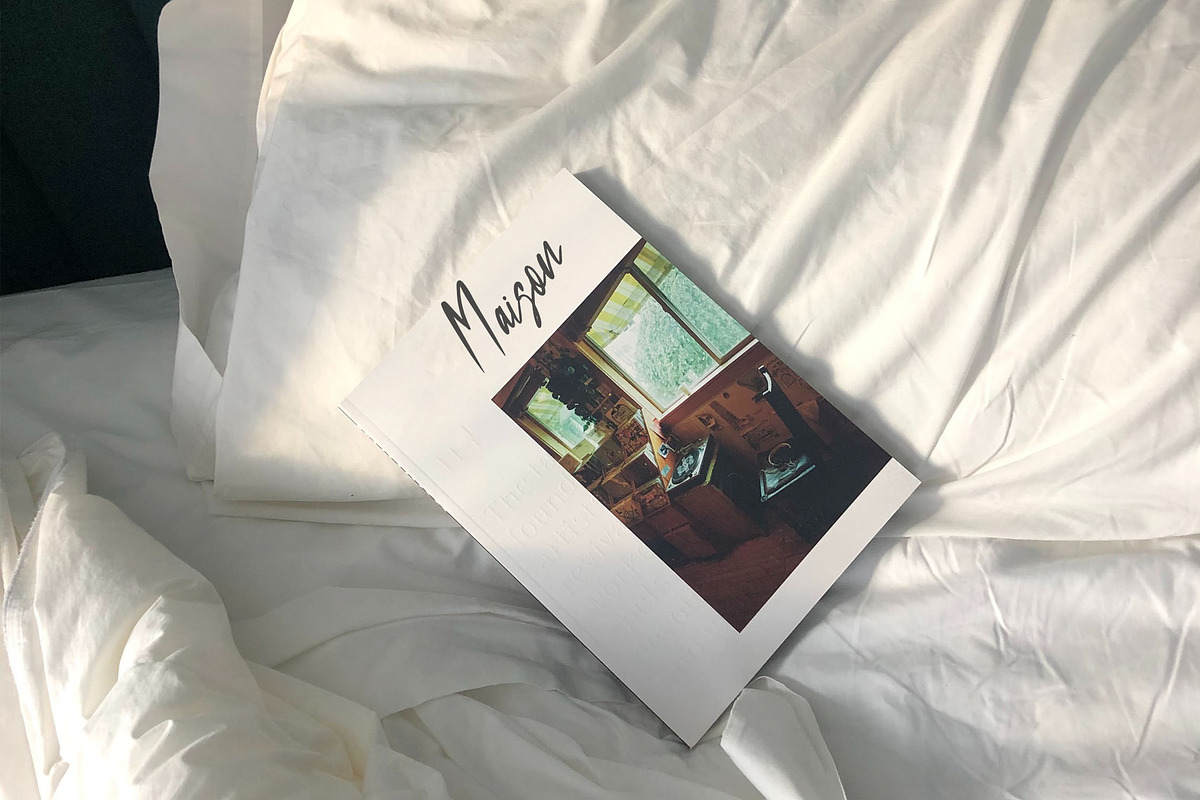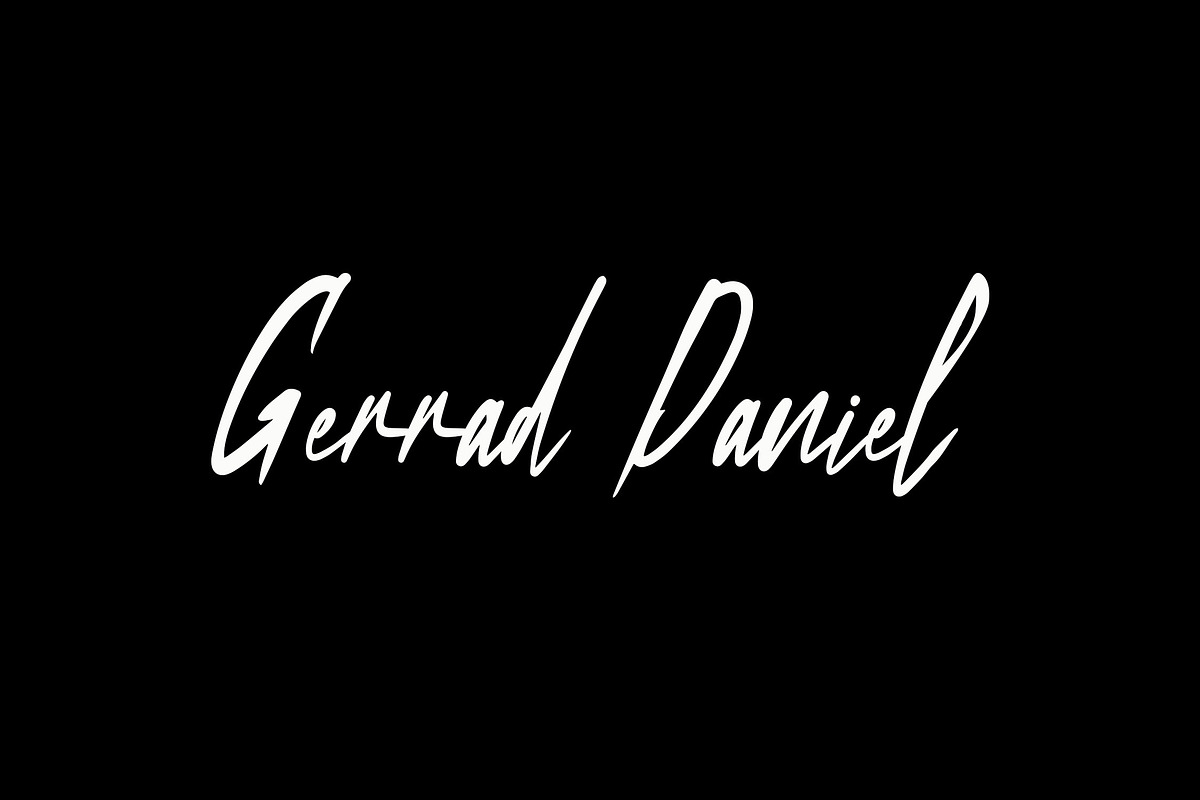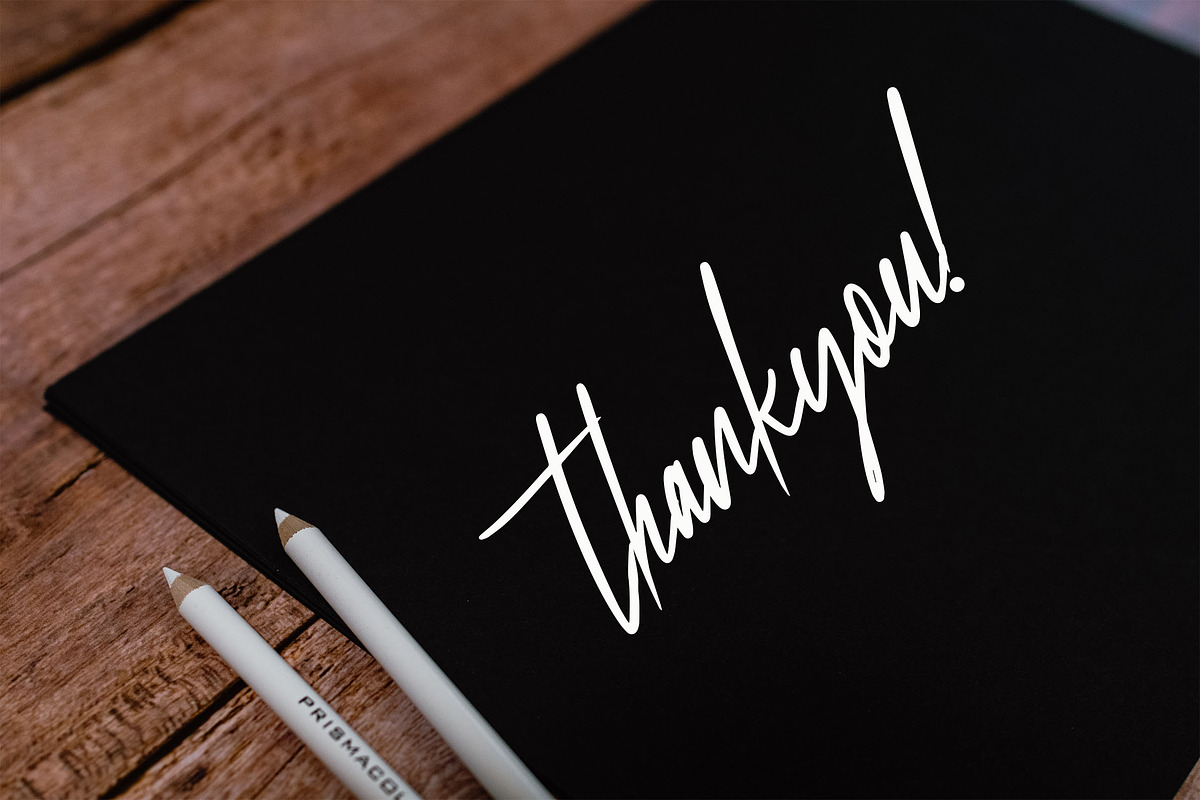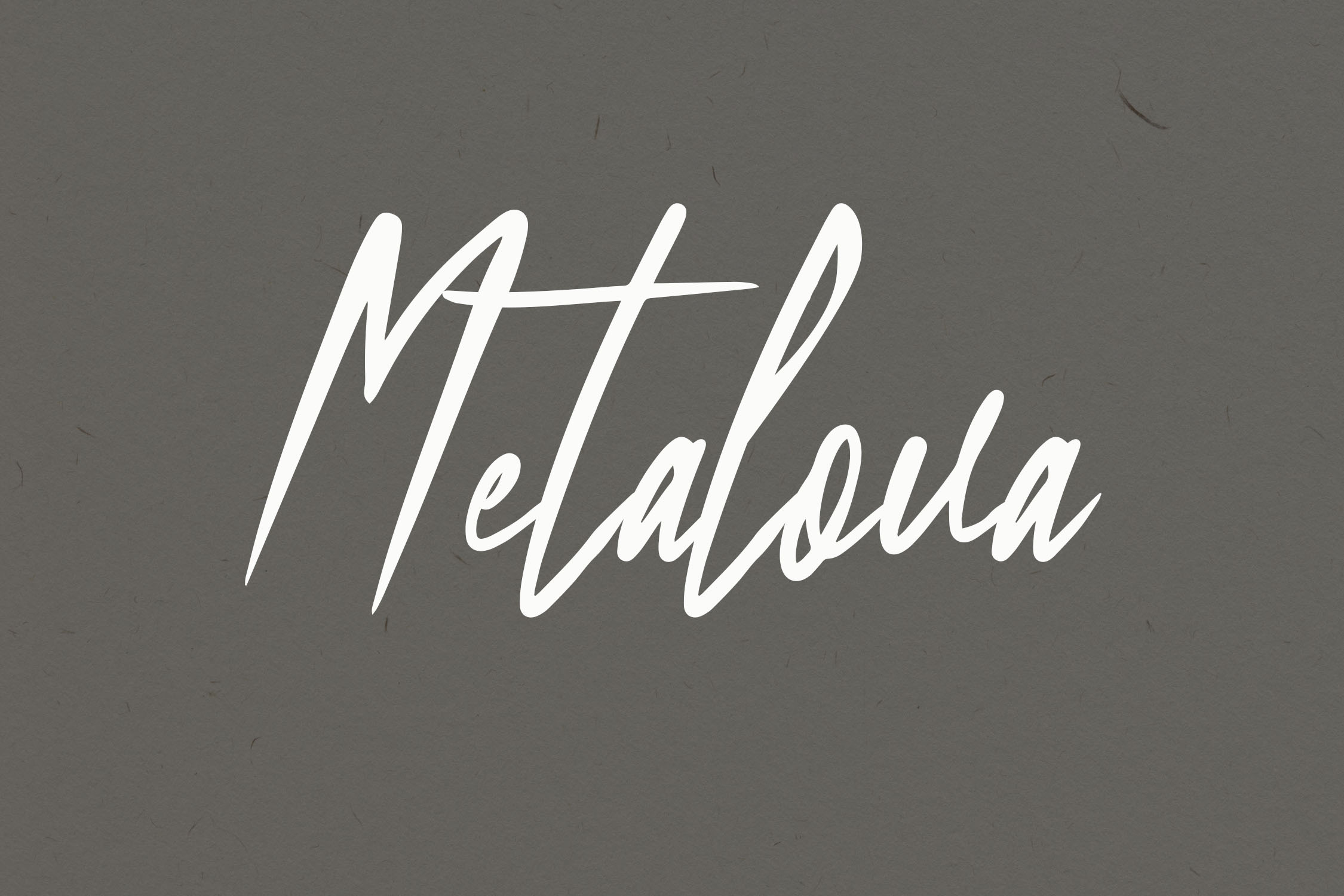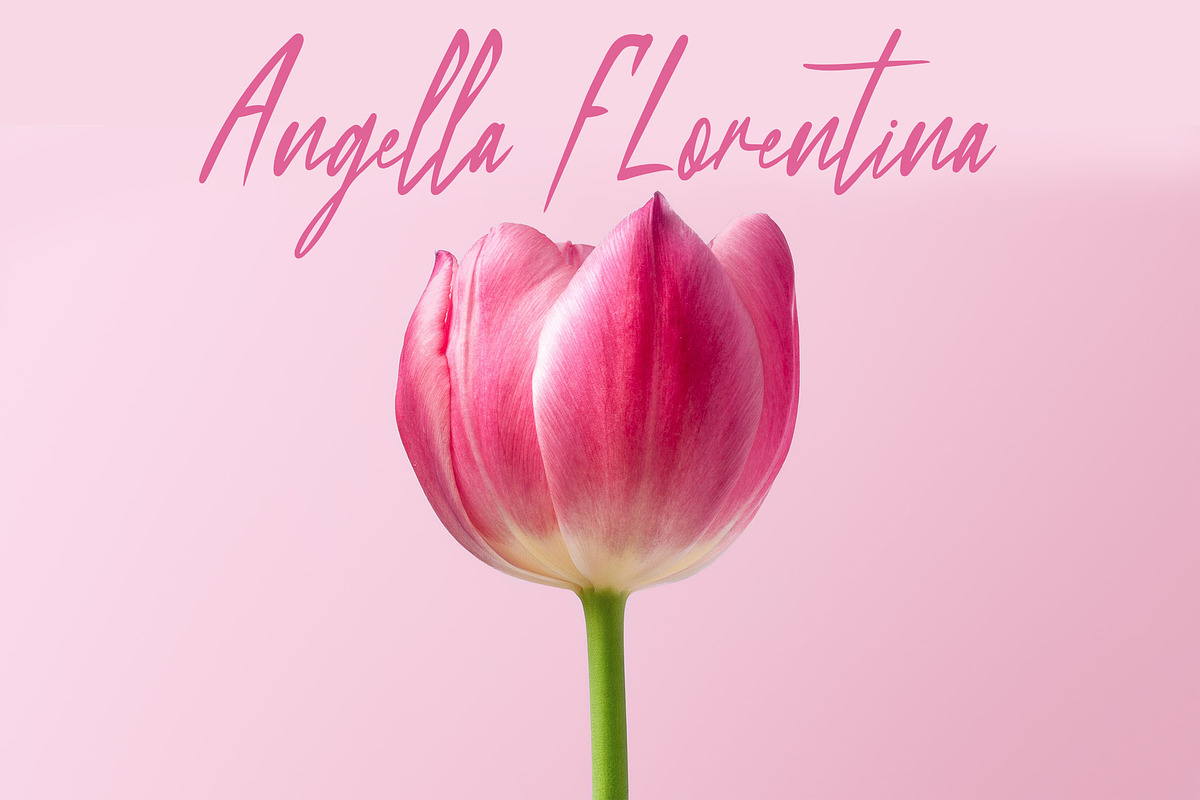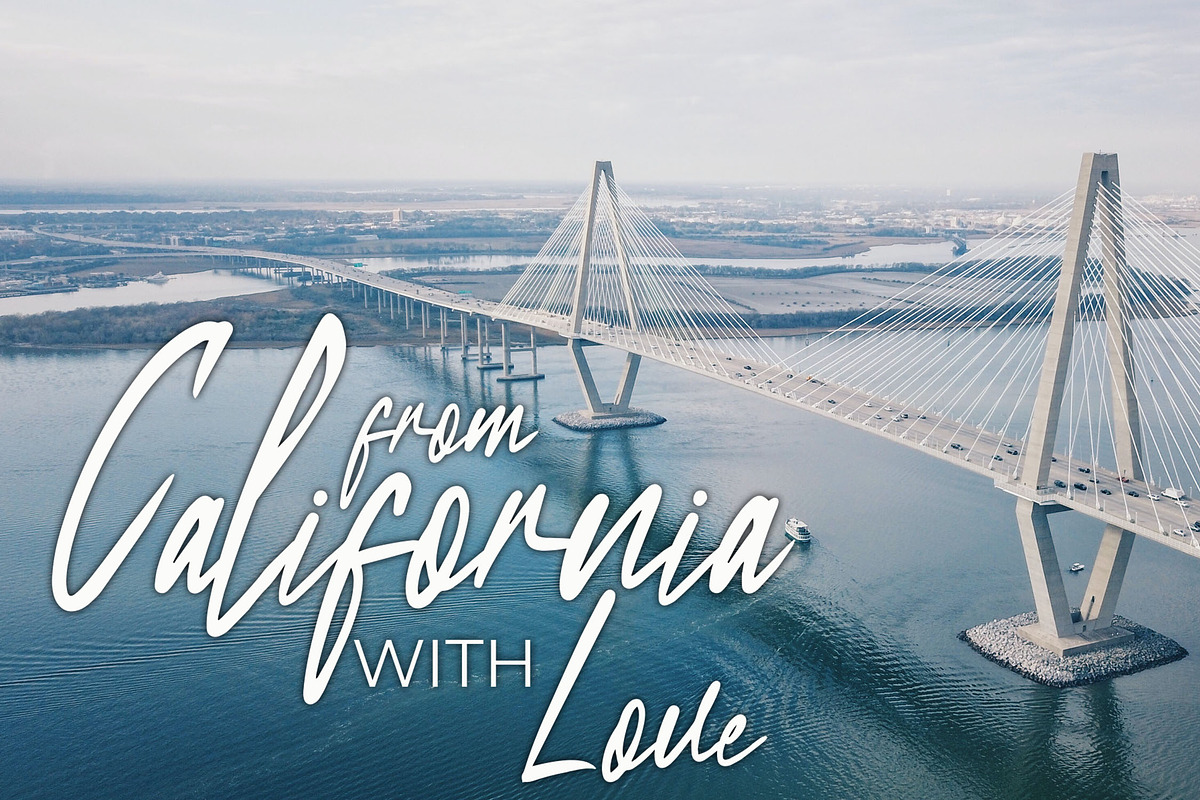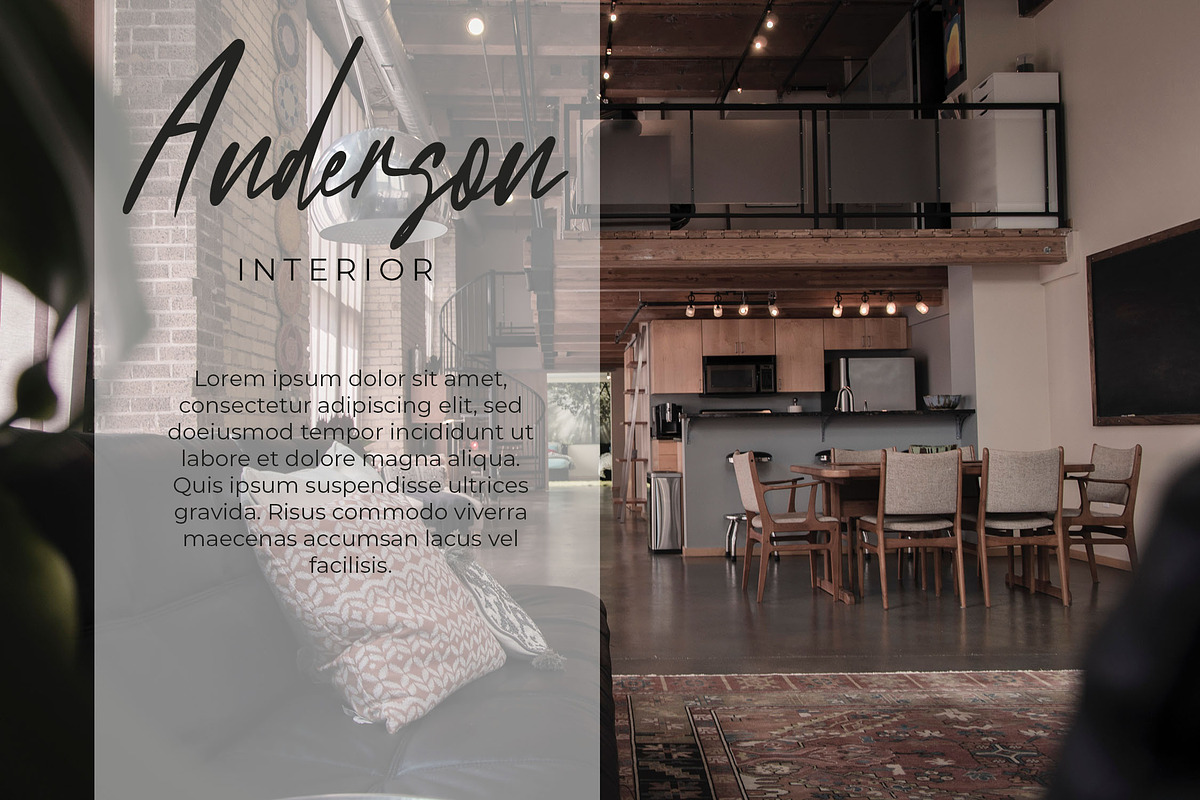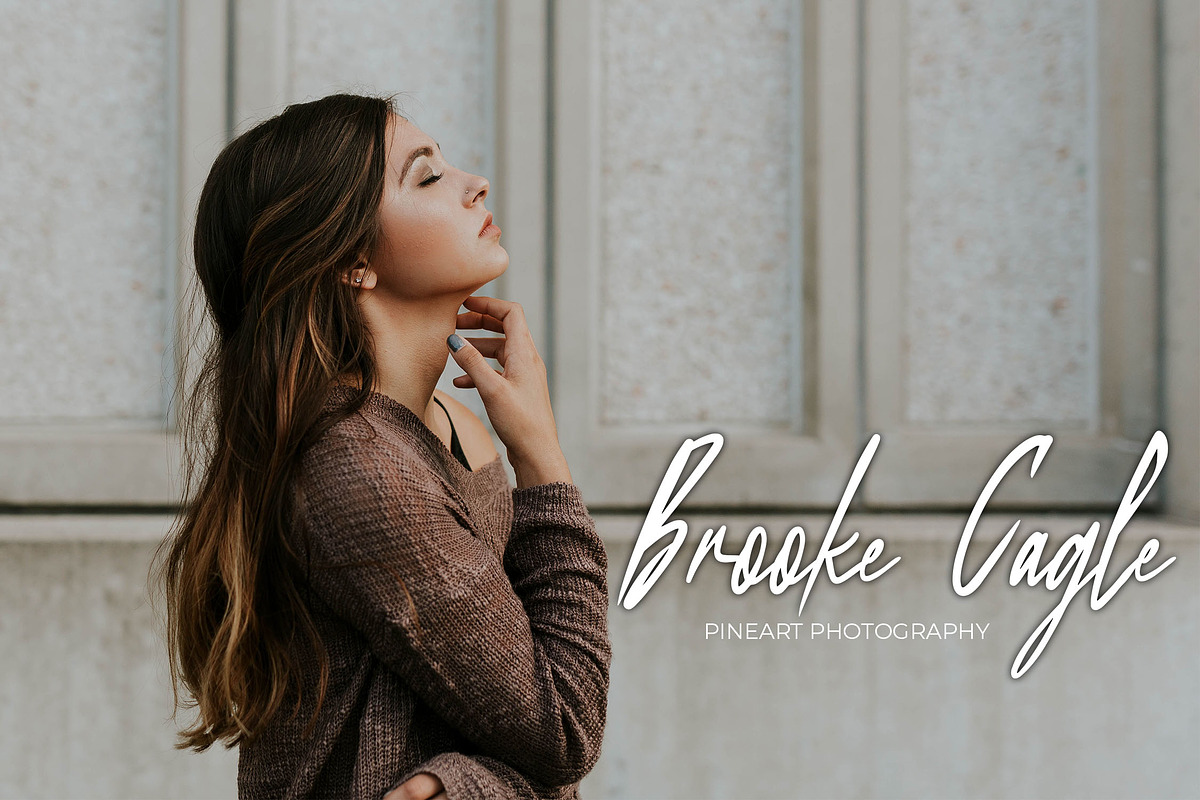
Metalova Elegant Script Font
Metalova Script Font
Metalova is an elegant script font designed with unique character shapes to enhance the visual appeal of your designs. Its refined and sophisticated style makes it perfect for logos, branding, invitations, posters, and other creative projects.